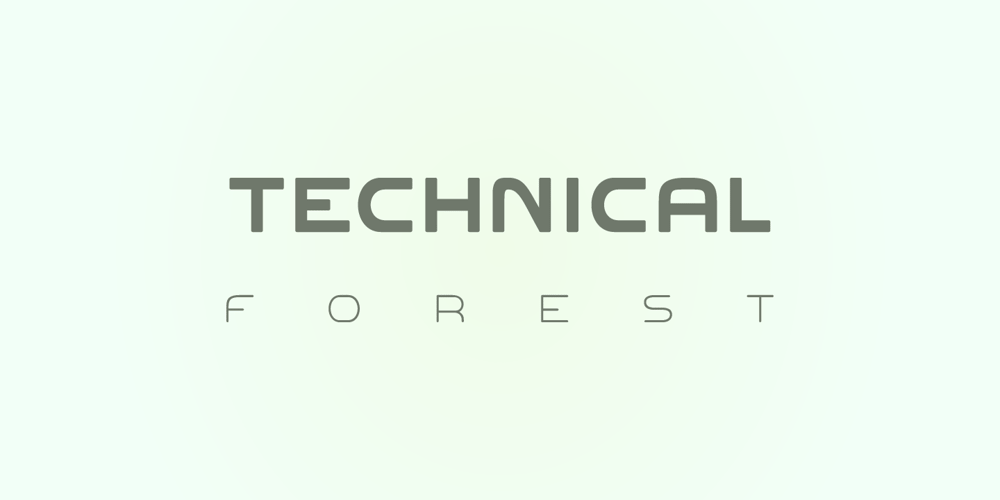
Technical Forest
Technical Forest font
Technical Forest Font Family was designed by Maciej Świerczek and published by Maciej Świerczek. Technical Forest contains 3 styles and family package options. Design style ready to use in headlines, tags and quotes refering to technology, sci-fi, modern economy and more recent themes. The name of this font is connected to its simplicity and combination of its soft and sharp style in lines – just like tree branches and leaves. Also inspired by block form of runes – related to nature in its full floral character. However kept in clear and precisely designed form of technical font.